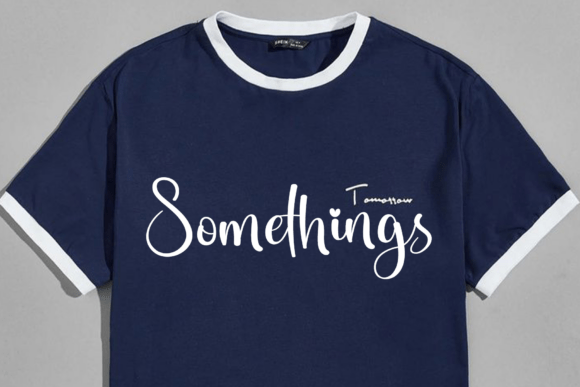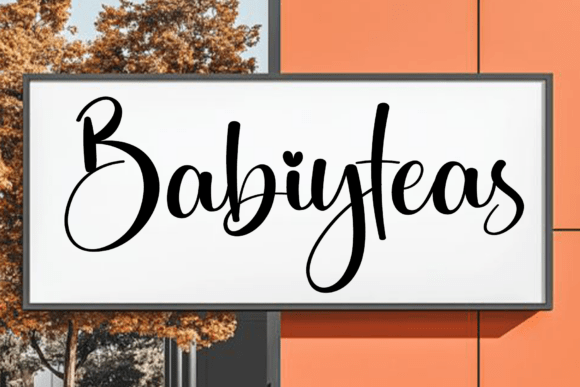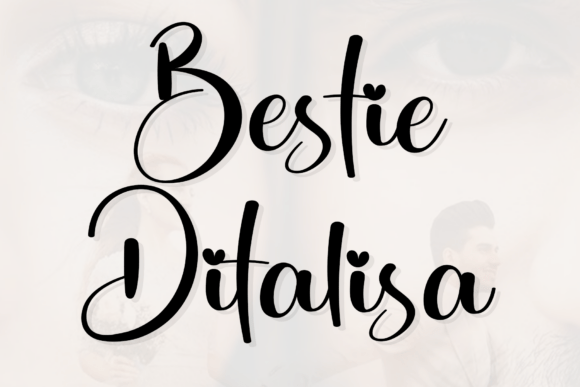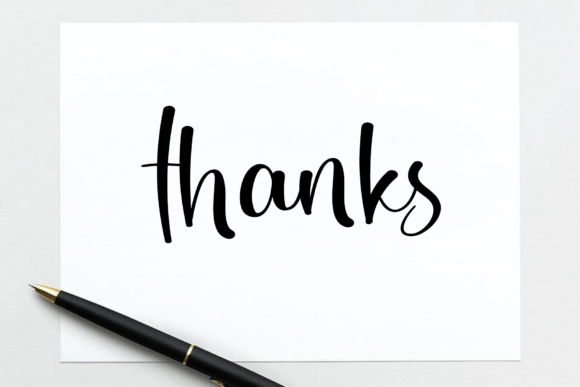
Introduction to Haileys Font
As designers, we’ve all been there – staring at a blank page, trying to find the perfect font to elevate our creative project. And then, like a ray of sunshine, you stumble upon it: Haileys Font. With its elegant, sweeping curves and organic aesthetic, this sophisticated script font is the ultimate design resource for any high-quality branding project.
Whether you’re working on a bespoke food label, a boutique product packaging campaign, or an upscale lifestyle marketing initiative, Haileys Font is sure to make your design shine. Its unique, artisanal style is perfect for adding a touch of handmade charm to your creative work, and with its transparent background, you can easily layer it over any image or texture to create a truly one-of-a-kind look.
Key Features of Haileys Font
- Unique, hand-drawn design with a touch of whimsy, making it perfect for creative projects that require a personal touch.
- High-quality font with transparent background, ideal for use on various design resources, including logos, graphics, and digital art.
- Comes in a range of sizes, from 12 to 72 points, making it versatile for use in various design contexts, from small text to large headings.
- Designed with a high resolution of 300 DPI, ensuring crisp and clear text, even when scaled up or down.
- Perfect for designers, artists, and writers looking for a unique and creative font to elevate their design resource or project.
Honest Review: Haileys Font
I recently had the chance to work with Haileys Font on a creative project, and I’m excited to share my honest review. As a designer, I’m always on the lookout for high-quality design resources that can elevate my work.
Haileys Font delivers in terms of style and sophistication. The elegant script design is perfect for weddings, invitations, and other special events. The font is also available for free download, making it an attractive option for designers on a budget.
Here are some of the things that work well with Haileys Font:
- ✨ Elegant script design that adds a touch of sophistication to any project
- ✨ Transparent background, making it easy to customize and edit
However, I did encounter a few limitations with Haileys Font:
- ⚠️ Limited character set, which can be a problem for longer text
- ⚠️ Not ideal for body text or large blocks of text
Overall, I’m impressed with Haileys Font and would recommend it to designers working on creative projects that require a touch of elegance. While it may have some limitations, the font’s high quality and free download make it a valuable addition to any design resource library.
Getting the Most Out of Haileys Font
To get the most out of Haileys Font, use it in combination with other design elements, such as images or graphics.
Haileys Font is ideal for:
- Wedding invitations
Alternatives to Haileys Font
The Great Vibes Font is a modern, elegant script font perfect for creative projects requiring a high-quality, cursive design. It features a transparent background and is ideal for use in titles, headings, and other prominent design elements. When to use: Wedding invitations, social media graphics, and promotional materials.
Comparing to Haileys Font, Great Vibes has a more refined and sophisticated look, making it suitable for more formal and professional designs.
Pacifico is a beautiful, handwritten font that works well for creative projects requiring a personal and relaxed tone. It features a smooth, cursive design and is ideal for use in titles, headings, and body text. When to use: Food blogs, travel websites, and lifestyle magazines.
Pacifico has a more casual and laid-back feel compared to Haileys Font, making it perfect for designs that require a friendly and approachable tone.
Carolyna Pro is a modern, elegant script font that is perfect for creative projects requiring a high-quality, cursive design. It features a transparent background and is ideal for use in titles, headings, and other prominent design elements. When to use: Fashion magazines, luxury brands, and high-end products.